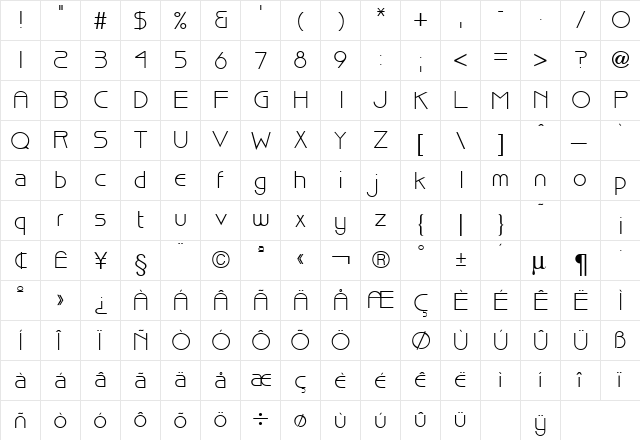
Bisque Regular
Design Context for Bisque Typeface
Bisque offers clean, dependable letterforms without strong stylistic allegiance, making it a practical choice for designers who need flexibility.